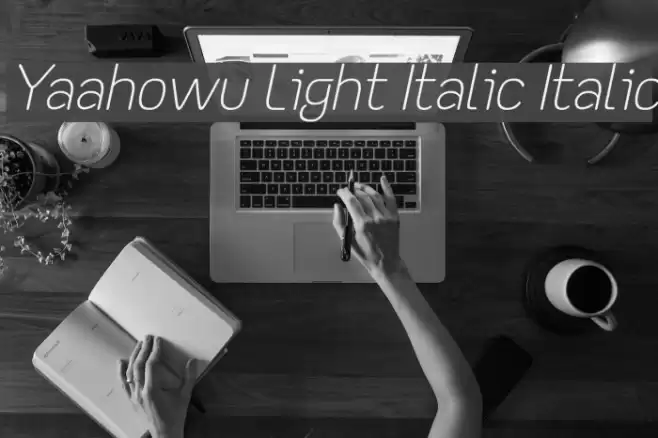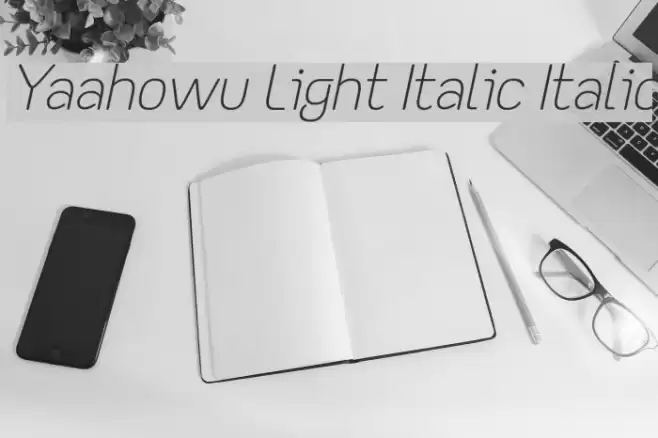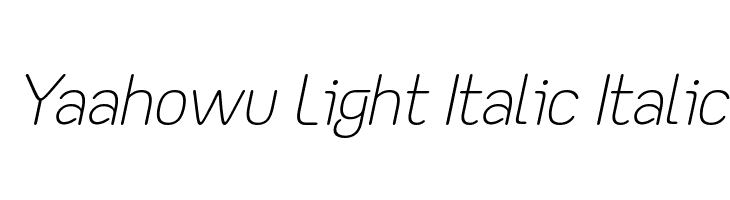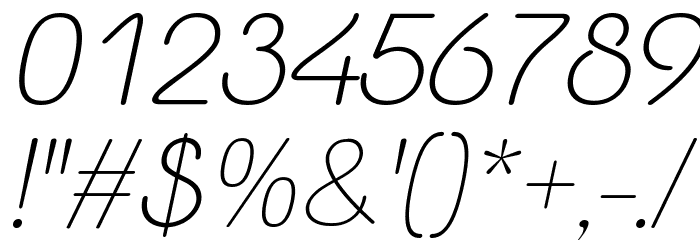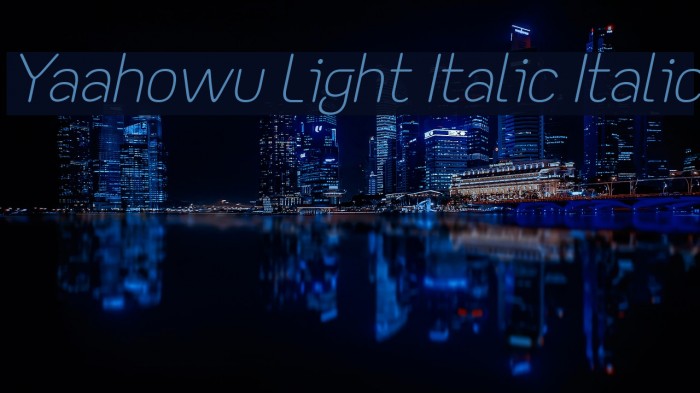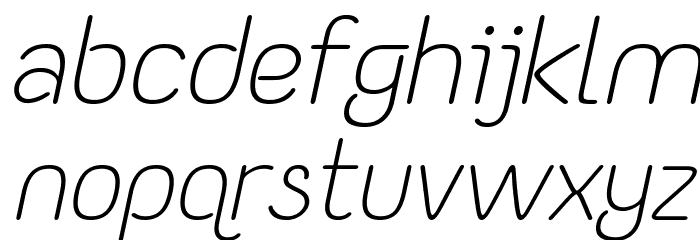
Yaahowu Light Italic Italic Font
Yaahowu Light Italic Italic Description
This font features a sleek and modern design with a light and airy feel. The characters are elegantly slanted, giving an italicized appearance that adds a sense of motion and fluidity. The strokes are consistent and thin, contributing to a clean and minimalist aesthetic. The rounded edges of the letters soften the overall look, making it approachable and friendly. This font maintains a uniform width across all characters, ensuring readability and balance. The numerals and special characters are designed to match the style of the alphabet, providing a cohesive look throughout.
A sleek, modern, and italicized font with a light and airy feel from Uncategorized fonts.
- Proposed Projects: Ideal for modern branding, elegant invitations, and stylish editorial design.